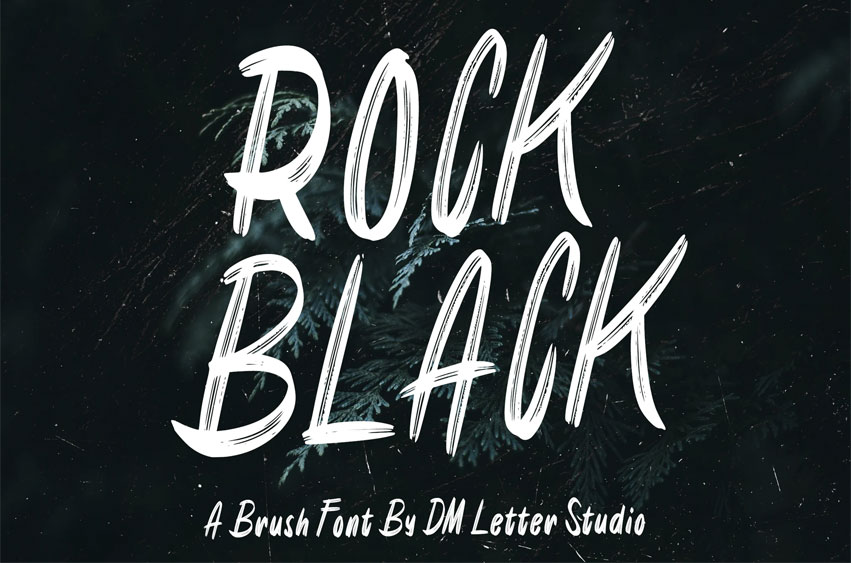
Rock Black Font
Rock Black Font is a bold and dynamic brush font crafted for projects that demand attention. With rugged strokes and a raw hand-painted texture, Rock Black delivers a powerful statement in every letter.
Rock Black captures the spirit of urban street art and grunge styles, making it ideal for bold headlines, logo designs, and impactful quotes. Give your designs a rebellious edge with this strong, versatile brush typeface!
• Uppercase & lowercase letters
• Numbers, punctuation, and symbols
• Authentic brush texture